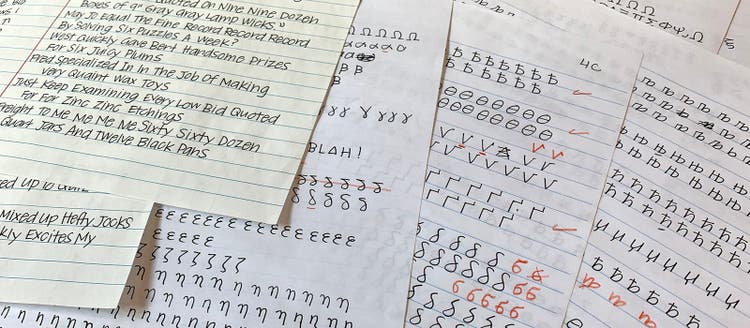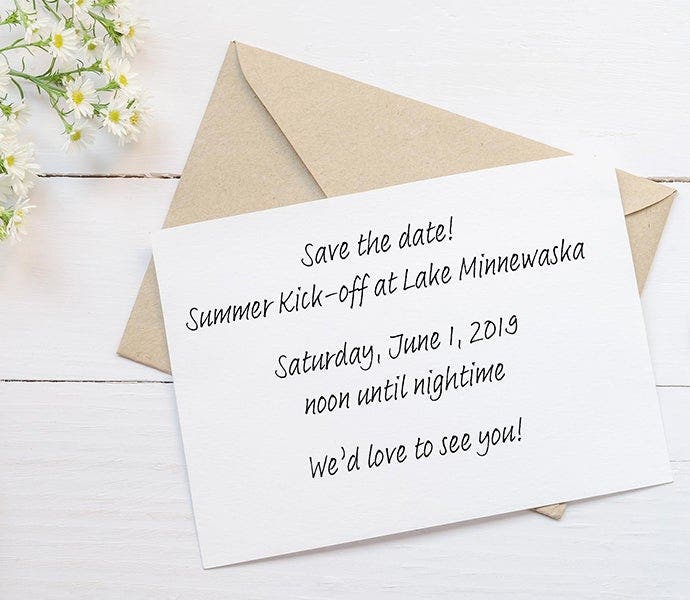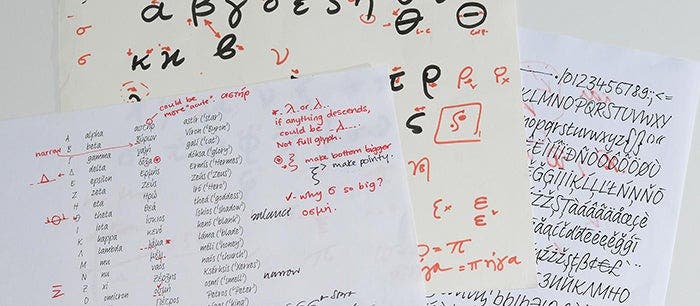
Three fonts, three personalities: Adobe Handwriting brims with potential.
It can be tricky to find typefaces that can convey the feeling of personal warmth that comes from a handwritten note, especially as we type more and write with pen or pencil less and less.
To add some more of that warmth to the Adobe Originals collection, we recently released Adobe Handwriting, a trio of fonts based on the handwriting of some of our own designers. The three eponymous styles of the family — Ernie, Frank, and Tiffany — each have a unique flavor with its own rhythm and character. These fonts were originally created in 2012 so Acrobat users could sign documents electronically, but they were capable of so much more, and we’re happy to share them for general use.
of software wizardry that makes these fonts so impressive. These three styles have no dynamic substitution, no alternates, and not even any kerning! Nevertheless, they each support an impressive range of languages using the Latin, Cyrillic, and Greek alphabets, and because they were designed to work well in a simple tool, a rare feature of these fonts is that they look just as good no matter where you use them.
How did we do it? LOTS of writing, and then even more care once we developed and refined digital outlines from the samples. Ernie, Frank, and Tiffany each wrote pages and pages of letters, words, phrases, numbers, and symbols to produce lots of examples for comparison and selection, in order to get the most authentic overall texture that captured the spirit of each writer’s hand. The best individual characters were scanned, converted to outlines, and then after a good amount of cleaning, adjusting, and positioning, the vector shapes were assembled into fonts.
Thanks to careful preparation and the keen eyes of the designers, the Adobe Handwriting fonts will look just as fresh and natural in situations with even the most basic font support as they will in sophisticated tools like InDesign.